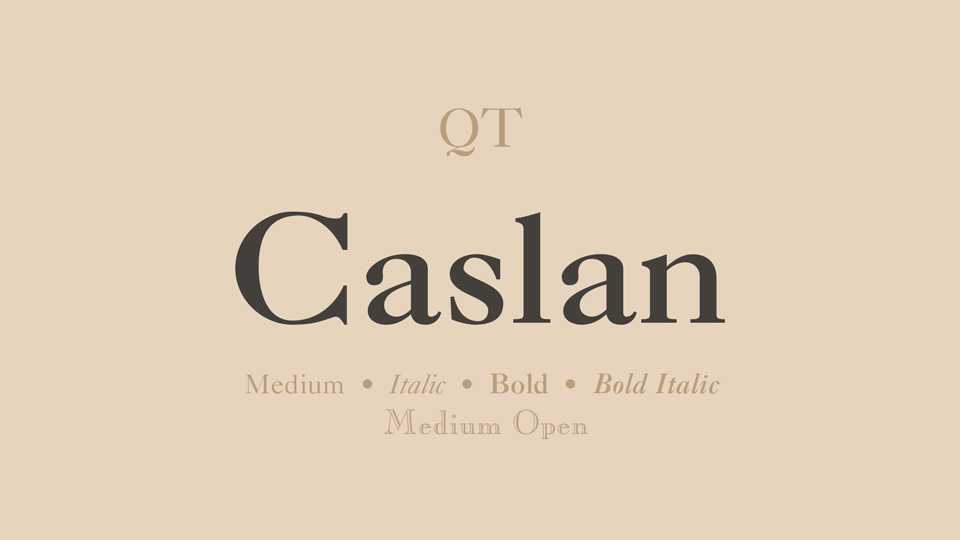
Caslan Font Family › Fontesk – Download Grátis
Download Caslan typeface, an elegant and warm yet solid and serious serif font family in two weights and Italics based on the Caslon designed by William Caslon in 1725.